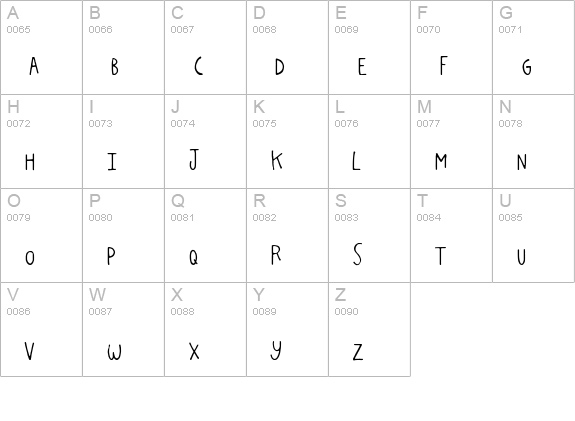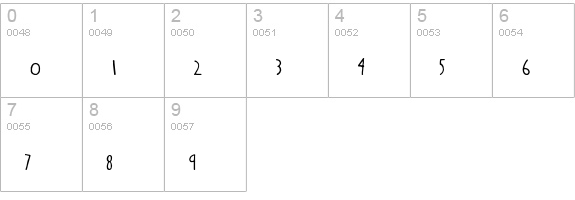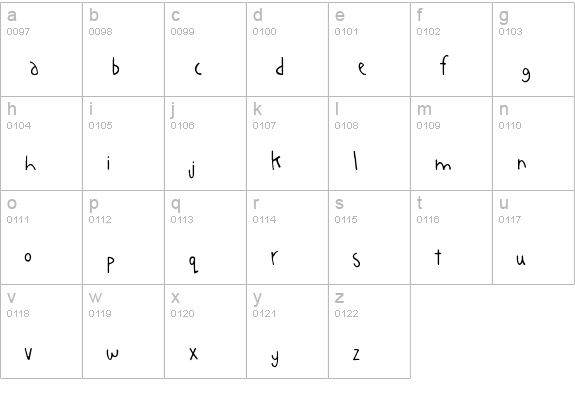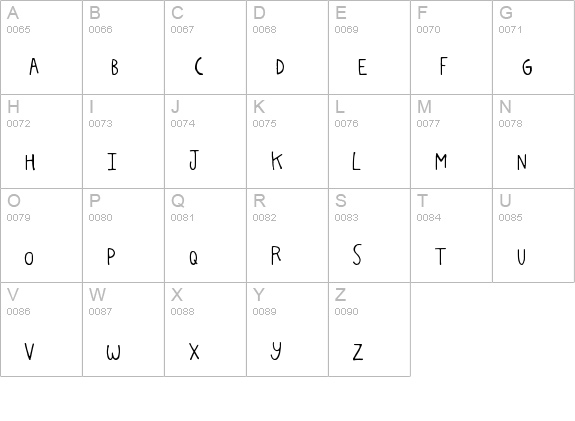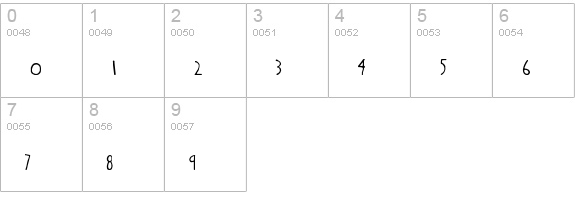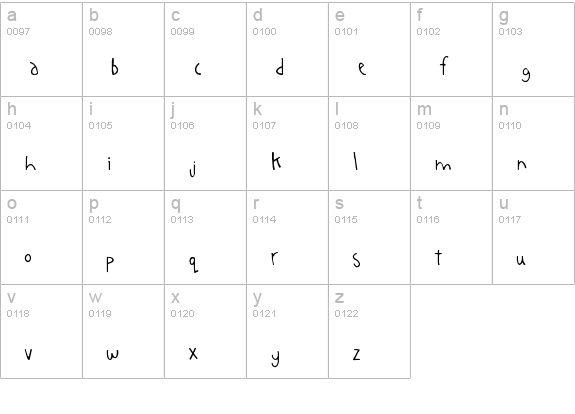
Auburn Font Details
Auburn font is a modern and elegant typeface that exudes sophistication and style. With its sleek lines and balanced proportions, Auburn is perfect for a wide range of design projects, from branding to editorial design. This versatile font features a unique blend of classic and contemporary elements, making it suitable for both traditional and modern aesthetics. What sets Auburn font apart is not only its timeless appeal but also its accessibility - it is available for free download at FontsMarket.com. This means that designers and creatives can easily access this high-quality font without any cost, making it a valuable addition to any font collection. Whether you're working on a logo, website, or print design, Auburn font will elevate your projects with its refined and polished look. Experience the beauty and versatility of Auburn font today by downloading it for free at FontsMarket.com.